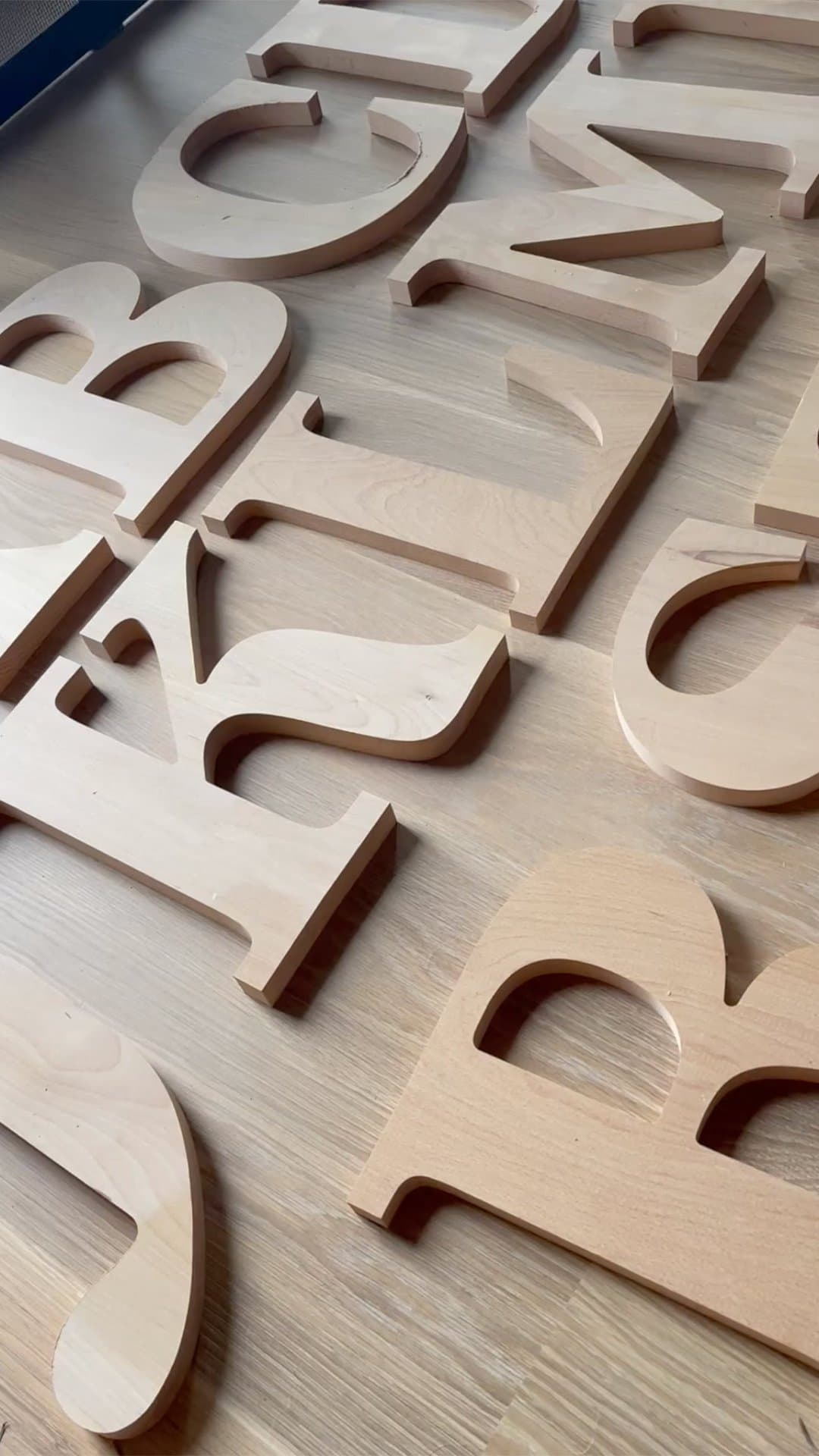
The Yule Ogg
Time moves variably during the holiday season as we look back on one year, prepare for the next, and hopefully make space to indulge in the present. The approaching Winter Solstice has long been celebrated as a moment to nurture these simultaneous movements of time. With the shortest day of 2021 falling this Tuesday, December 21, Sharp Type marks the occasion with The Yule Ogg, our twist on a holiday classic.
By now, the Yule Log video is a seasonal staple of western culture. It lives in a strange Venn diagram where solemn holiday reflection, mistletoe naughtiness, and Christmas sweater irony merrily coexist. The first Yule Log video was aired in 1966. Fred Thrower, manager of WPIX-TV Channel 11 in New York City, had the idea to loop a 17-second film clip of a lit, ornate fireplace as a holiday card to their viewers. Like Thrower, Sharp Type wanted to do “something a little different and special.” In our case, this meant fabricating woodcuts of the entire Latin alphabet in one of our most beloved typefaces, Ogg - and then burning them all, one by one.
The resulting recording of this process is Sharp Type’s inOGGural YouTube video.
The provenance of the Yule Log is not entirely clear, but its origins point to pre-medieval Norse traditions. During the celebration of the winter solstice, it was one of the emblems of “divine light”, and at one point, an entire tree was burned. Over time, however, as the tradition spread across Northern Europe and then to North America, a large log from the trunk of a tree became more practical. How the log itself burned - the rhythm and pattern of sparks, the falling of the embers, etc. - could be read as a way of determining one’s good fortune in the coming year.
Just as the Yule Log is the foundational log of the holiday fire, Ogg has become one of the foundational typefaces of Sharp Type. The initial plan was to use Ogg Display, but we found the shapes too delicate for the wood-cutting process. Its sibling, however, Ogg Text, proved to be an ideal candidate with its thicker hairlines; fuller figures; and wide, sprawling large serifs.
Our friends at Neal’s CNC in Hayward, California realized our vision, masterfully cutting slabs of ash wood into the clean, crisp cuts of Ogg you see in the video. While Fred Thrower had access to the grand hearth at Gracie Mansion, Sharp Type founders Lucas Sharp and Chantra Malee used their own fireplace in Marin County, and they performed the due diligence of placing the letters to alight, one by one, over four hours.
May these toasty woodcuts usher in a new year of good spirits, good health, and good type. Wishing the best to you and yours!